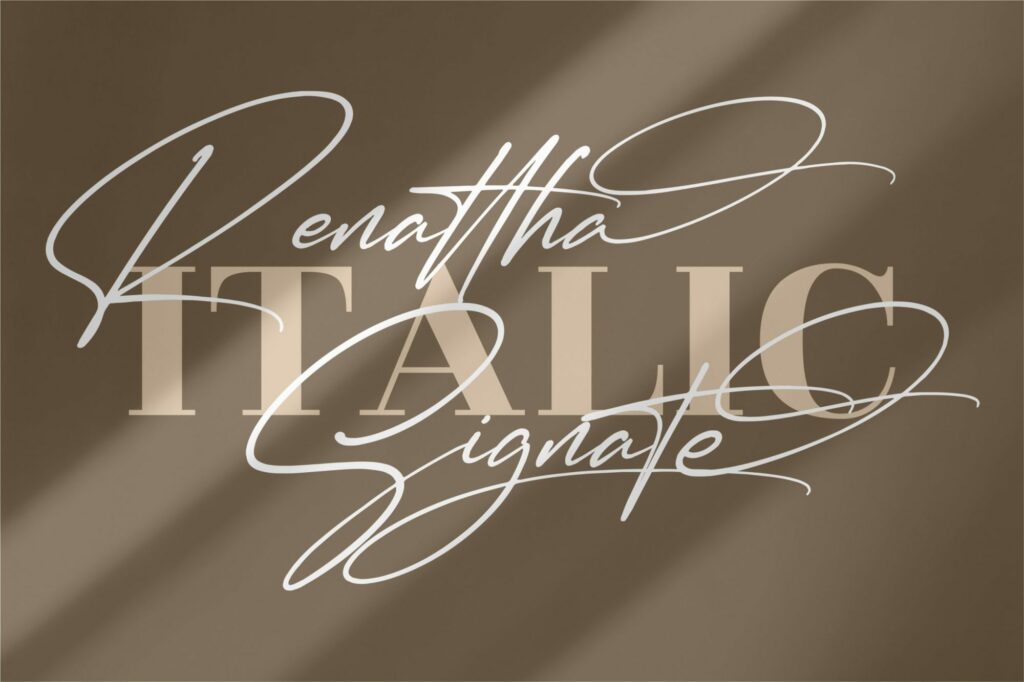
Renattha Signate Font
Renattha Signate is a thin lettered and graceful handwritten script font. Fall for its ravishing style and use it to create gorgeous wedding invitations, beautiful stationary art, eye-catching social media posts, and much more! This font is PUA encoded which means you can access all glyphs and swashes with ease!